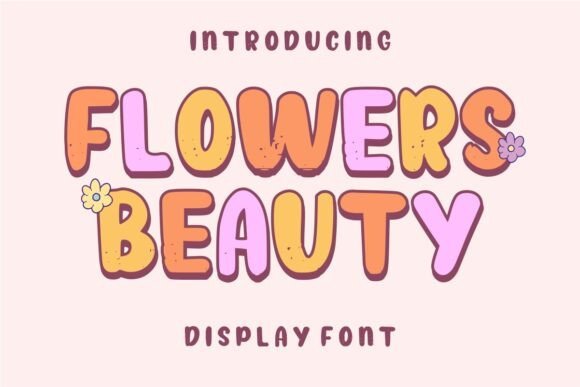
Introduction to Flowers Beauty Font
Flowers Beauty is a display font that is cute, bright, and fun.
It is perfect for children-themed designs, especially when combined with bright and pastel colors Add this beautiful display font to each of your creative ideas, and notice how it makes them stand out.
Key Features of Flowers Beauty Font